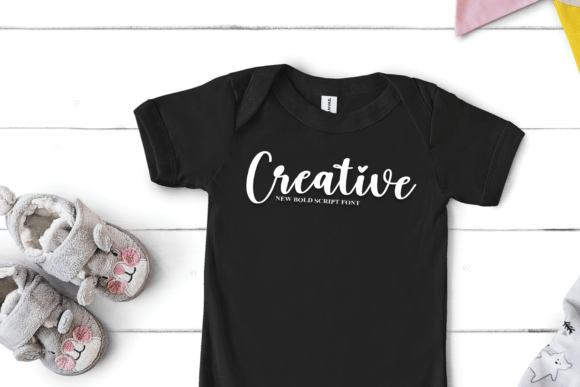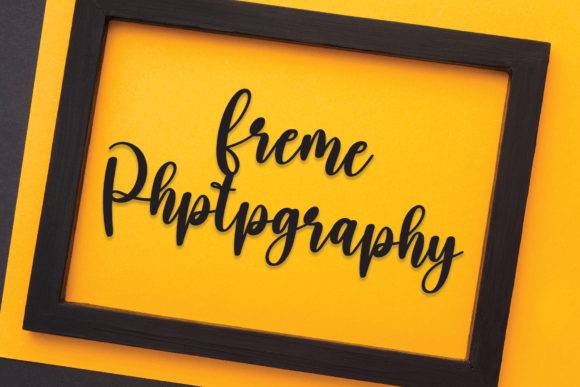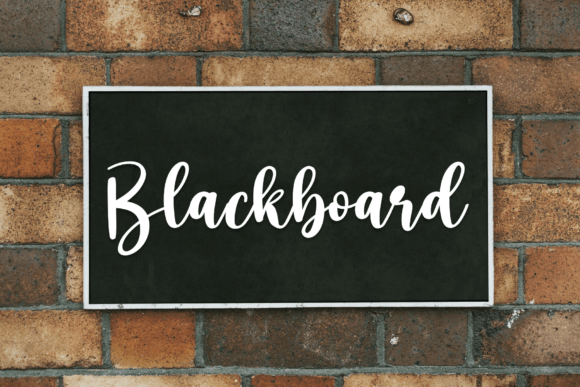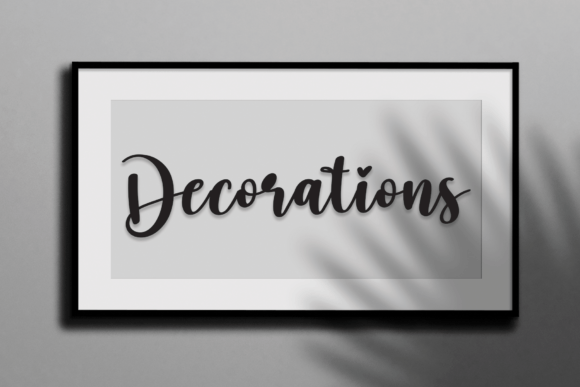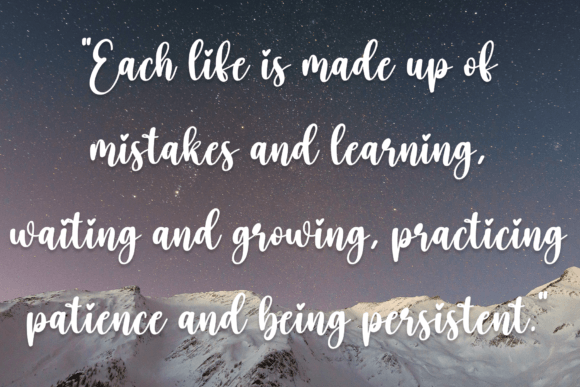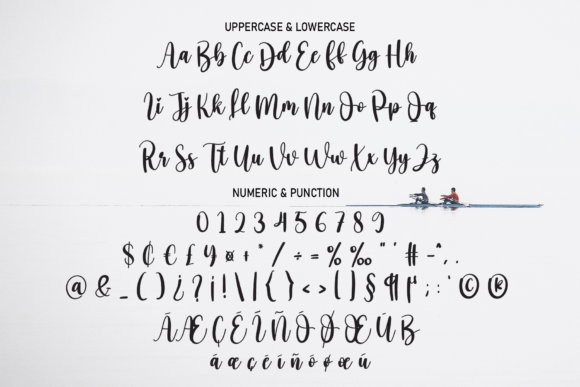
Introducing Chilly Font: The Perfect Handwritten Style for Your Creative Projects
Are you a designer or crafter looking for a unique and stylish font to elevate your creative projects? Look no further than Chilly Font, a beautiful handwritten font that is perfect for adding a personal touch to your designs. With its latest style letters, Chilly Font is ideal for a wide range of applications, from wall displays and wedding invitations to social media post logos, advertisements, product packaging, and more.
What Makes Chilly Font So Special?
Chilly Font is a carefully crafted font that boasts a distinctive handwritten style, making it perfect for projects that require a personal and creative touch. The font’s letters are designed to be elegant, yet playful, with a unique charm that sets it apart from other fonts. Whether you’re looking to create a stunning wall display, a beautiful wedding invitation, or a eye-catching social media post, Chilly Font is the perfect choice.
Uses for Chilly Font
Chilly Font’s versatility makes it an excellent choice for a wide range of creative projects, including:
- Wall Displays: Create stunning wall displays with Chilly Font’s elegant letters, perfect for showcasing quotes, lyrics, or inspirational messages.
- Wedding Invitations: Add a touch of romance and whimsy to your wedding invitations with Chilly Font’s beautiful handwritten style.
- Social Media Post Logos: Elevate your social media presence with Chilly Font’s unique and eye-catching letters, perfect for creating logos, headers, and more.
- Advertisements: Stand out from the crowd with Chilly Font’s bold and playful letters, ideal for creating eye-catching advertisements.
- Product Packaging: Add a personal touch to your product packaging with Chilly Font’s elegant and sophisticated letters.
- Product Designs: Create stunning product designs with Chilly Font’s unique and creative letters, perfect for labels, branding, and more.
- Labels: Use Chilly Font to create beautiful and elegant labels for your products, perfect for crafters and small business owners.
- Photography: Add a touch of elegance to your photography with Chilly Font’s beautiful letters, perfect for creating watermarks, overlays, and more.
- Watermarks: Protect your images with Chilly Font’s elegant letters, perfect for creating subtle yet effective watermarks.
- Invitations: Create stunning invitations for any occasion with Chilly Font’s beautiful handwritten style.
- Stationery: Elevate your stationery with Chilly Font’s elegant letters, perfect for creating personalized notecards, journals, and more.
Why Choose Chilly Font?
With so many fonts to choose from, why choose Chilly Font? Here are just a few reasons why designers and crafters love Chilly Font:
- Unique Style: Chilly Font boasts a distinctive handwritten style that sets it apart from other fonts.
- Versatility: Chilly Font is perfect for a wide range of creative projects, from wall displays to product packaging.
- Elegant and Playful: Chilly Font’s letters are both elegant and playful, making it perfect for projects that require a personal touch.
If you’re looking for a beautiful and versatile font to elevate your creative projects, look no further than Chilly Font. With its unique handwritten style, elegant letters, and versatility, Chilly Font is perfect for designers and crafters who want to add a personal touch to their designs. Whether you’re creating wall displays, wedding invitations, social media post logos, or product packaging, Chilly Font is the perfect choice.